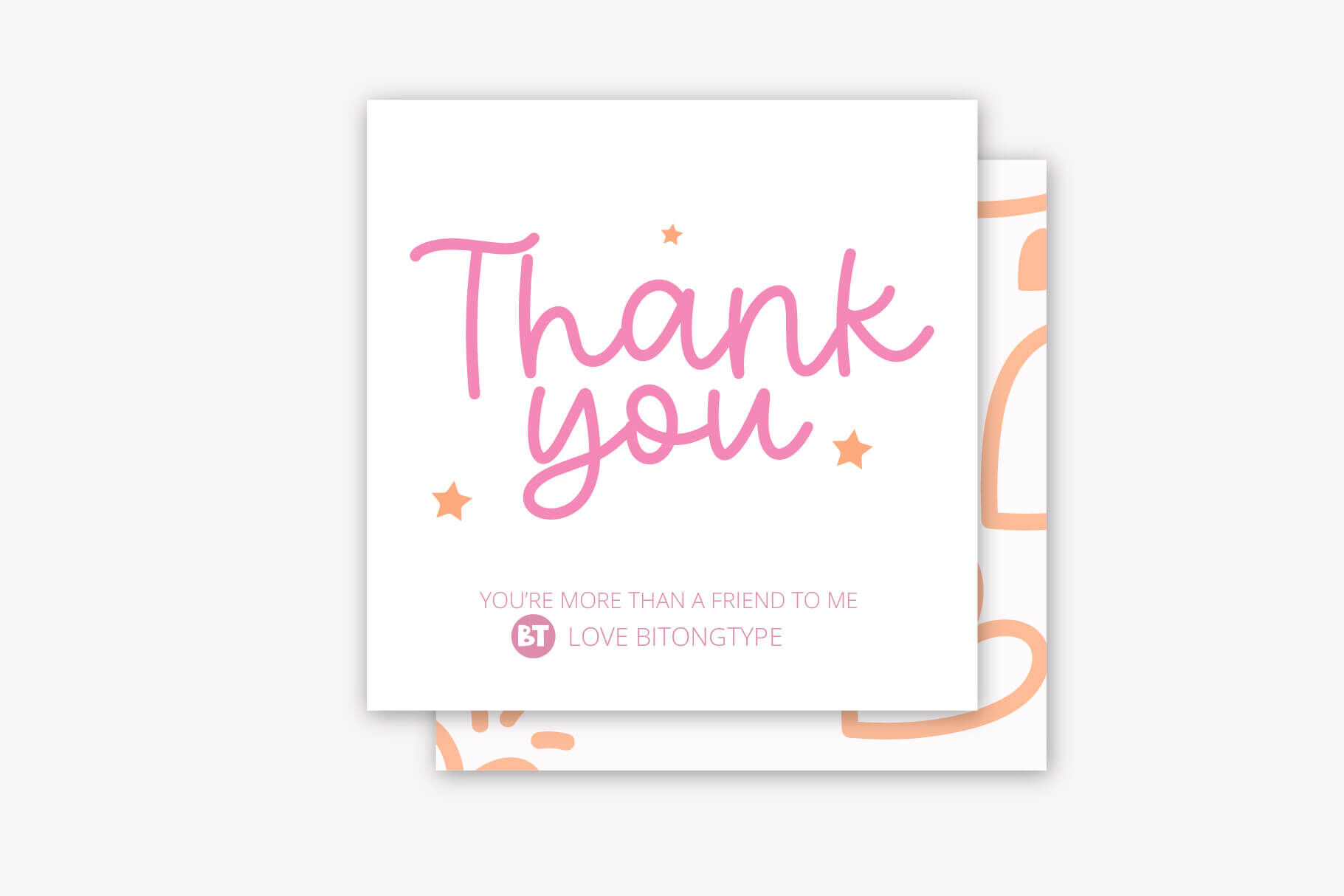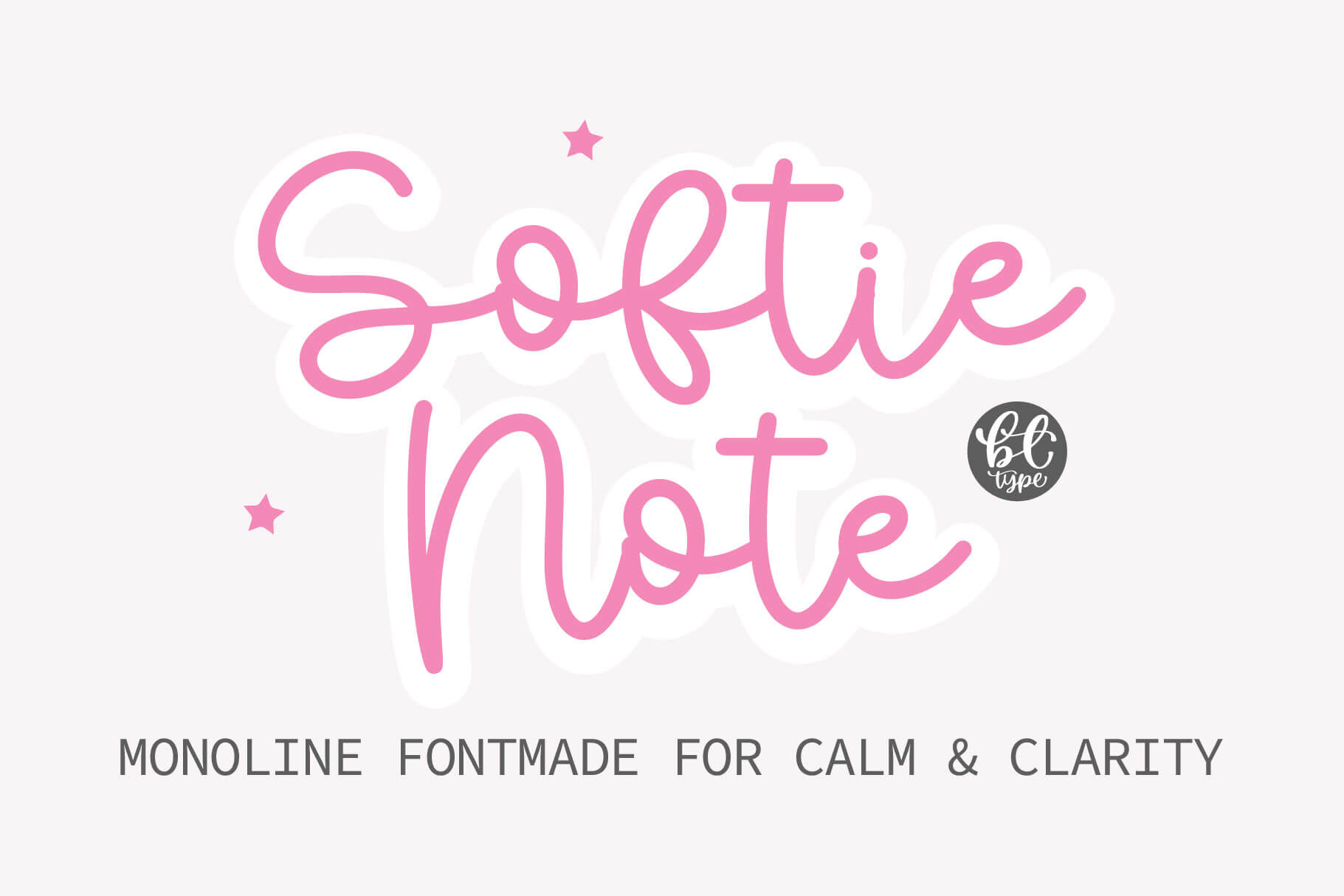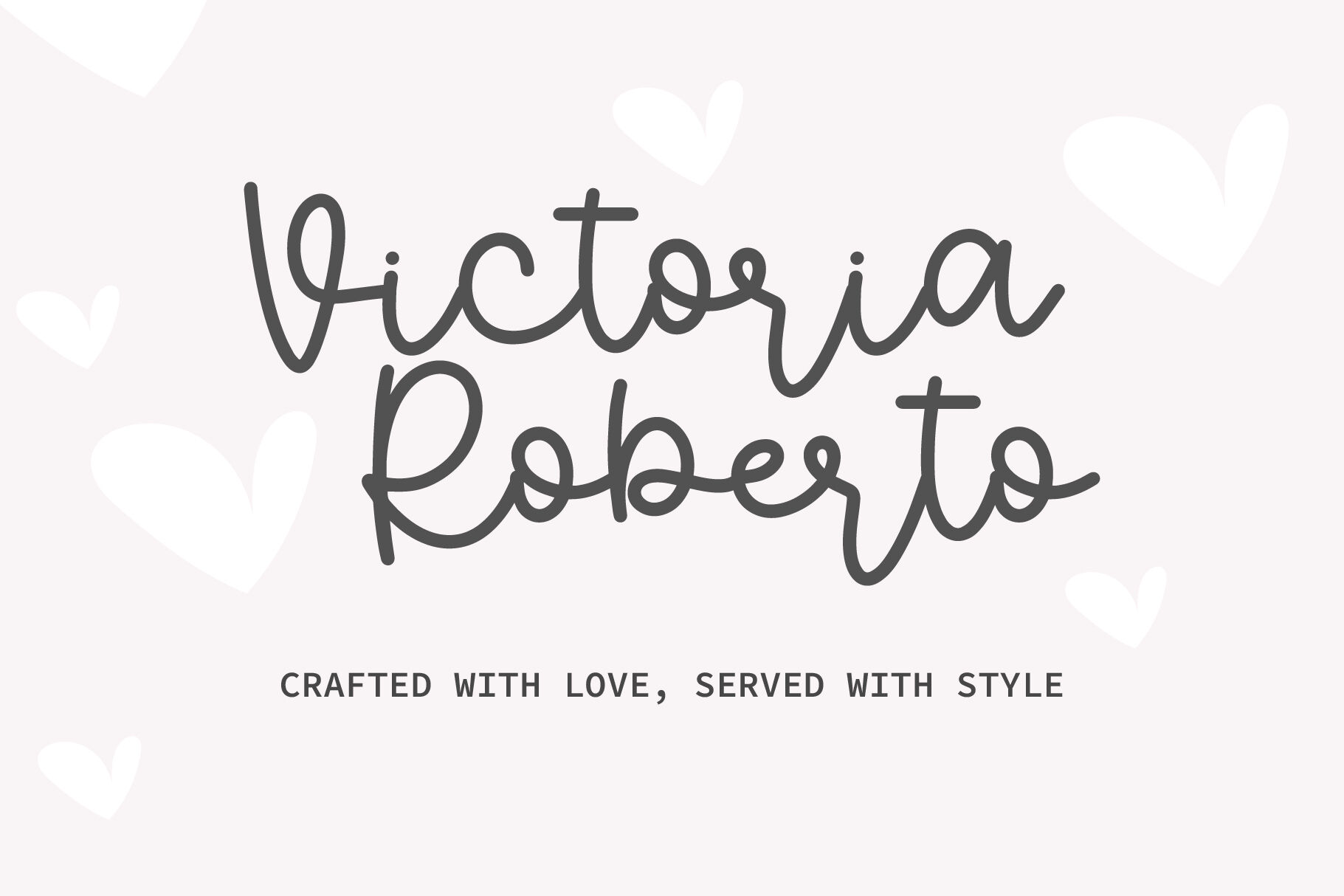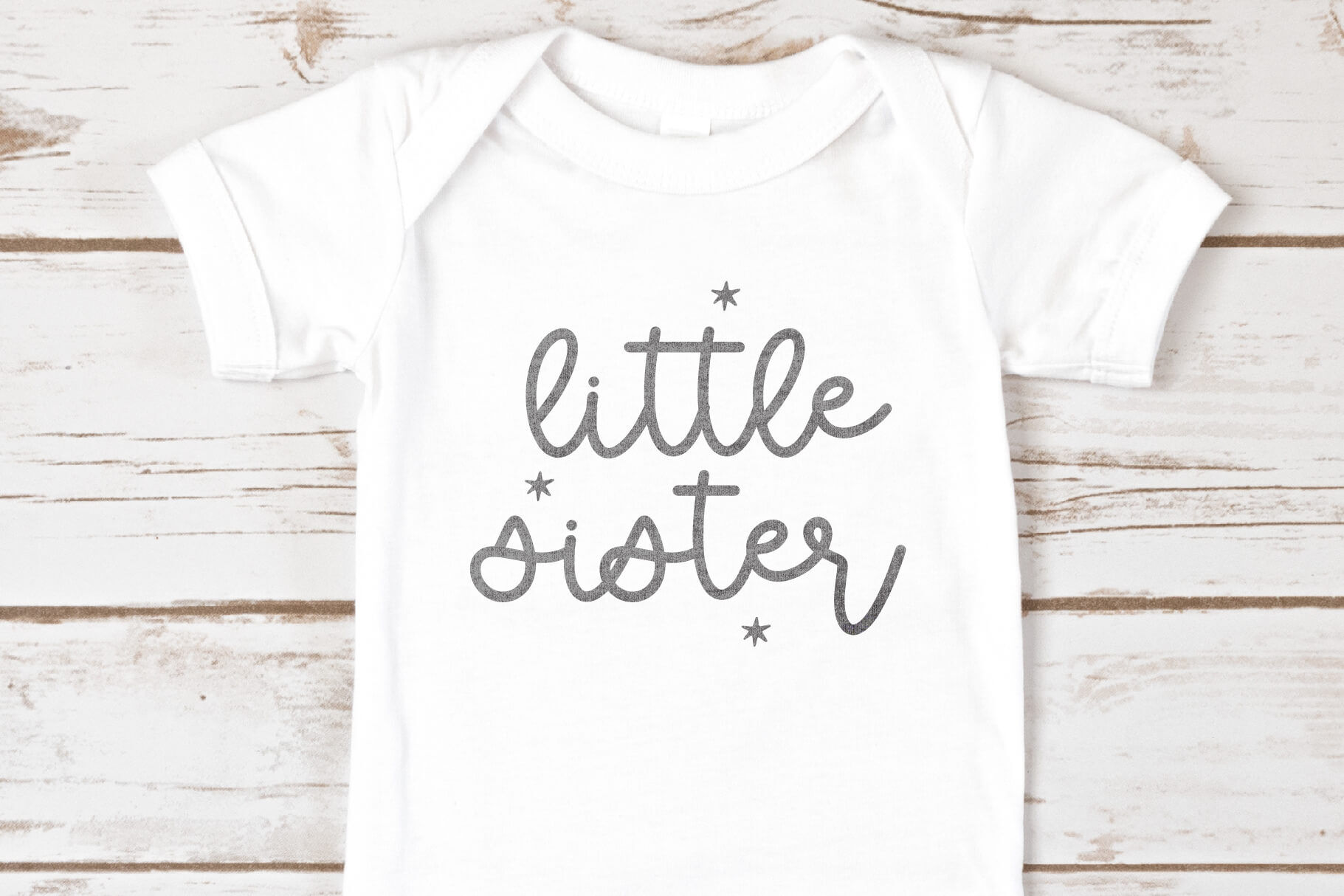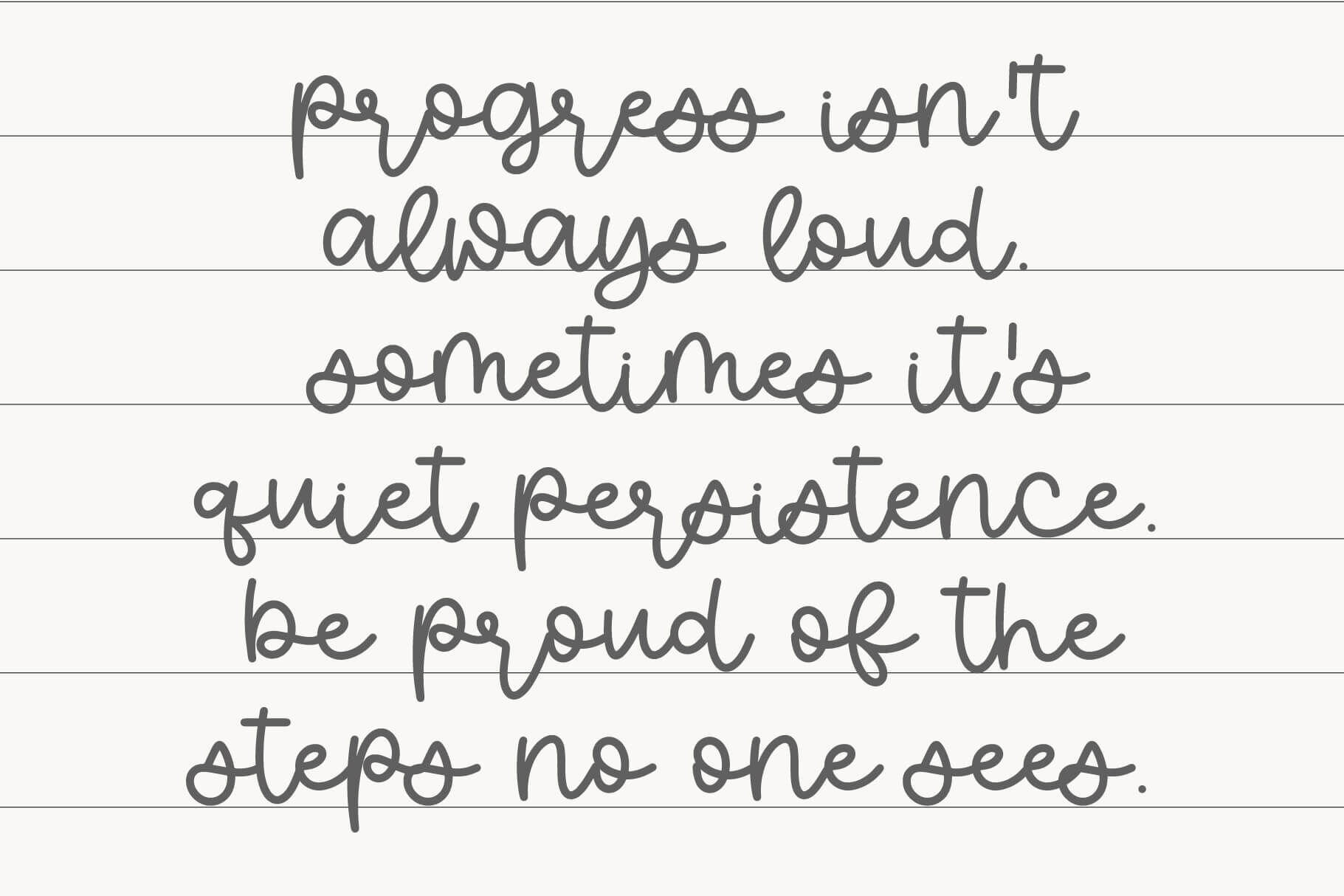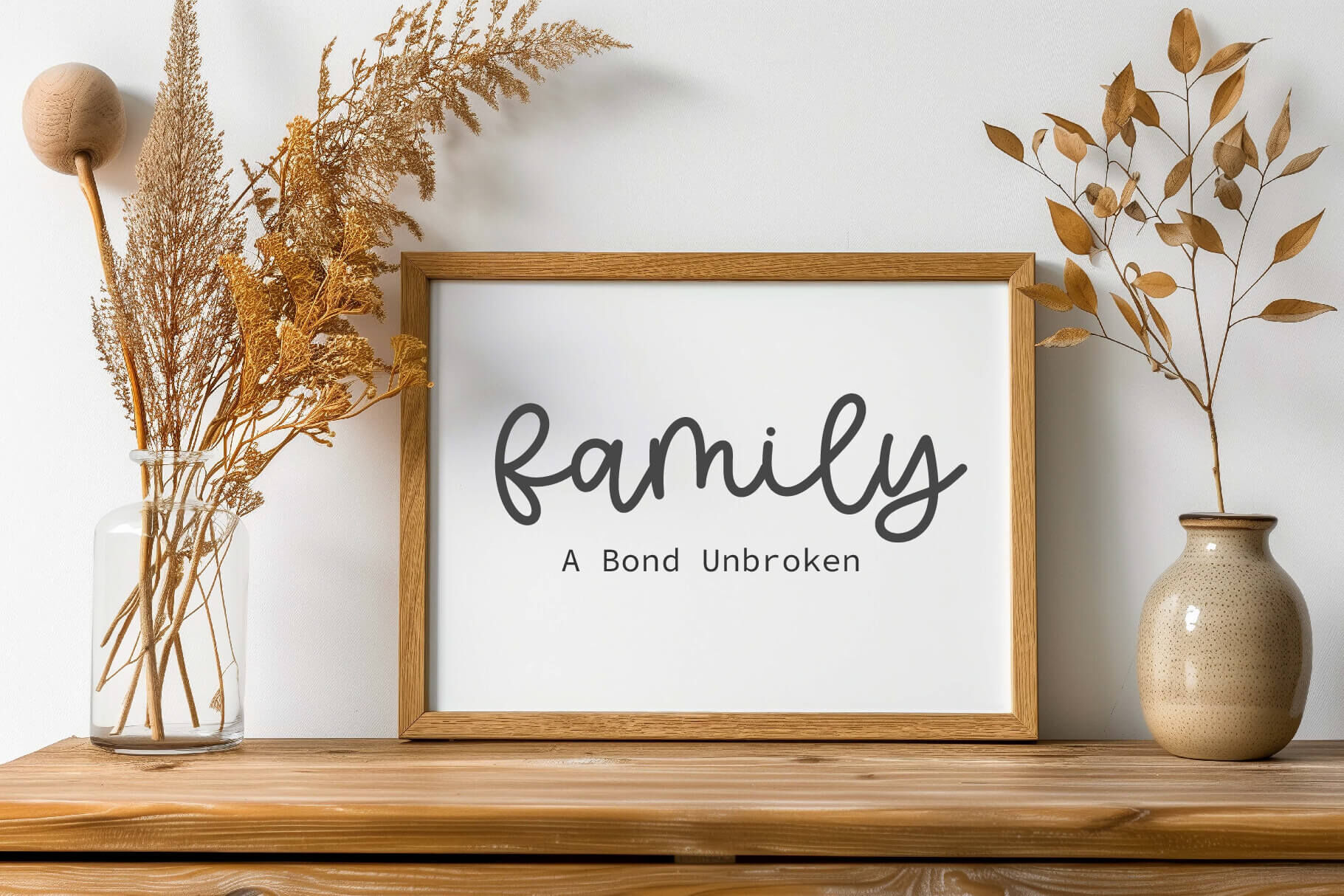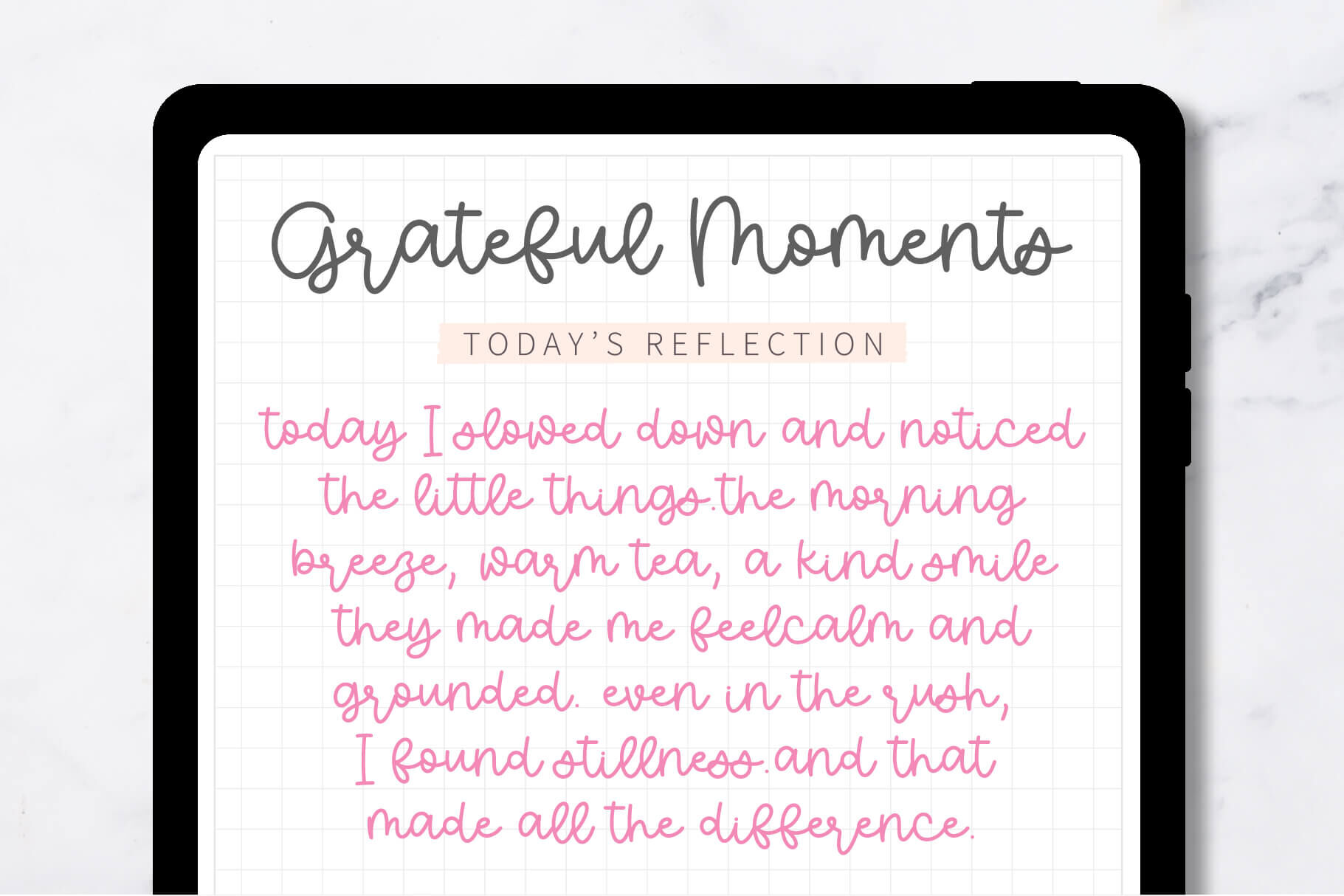
Softie font - A cute handwritten font
Meet Softie Note — a sweet and playful handwritten font made to charm any project! With soft rounded strokes, it's perfect for planners, journals, greeting cards, and creative crafts.Whether you're decorating planner pages or designing with Cricut, Softie Note gives your work a fun, hand-drawn touch — like it was written by you!   What's Included : - Softie Note (OTF/TTF) - Standard glyphs, Basic Latin Unicode: standard English numbers and basic punctuation - Works on PC & Mac - Simple installations  - Accessible in Adobe Illustrator, Adobe Photoshop, Adobe InDesign, and even work on Microsoft Word. Thanks for enjoying my font!